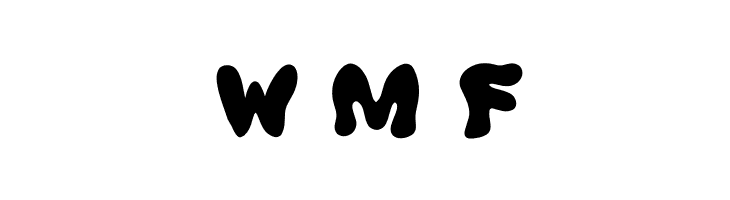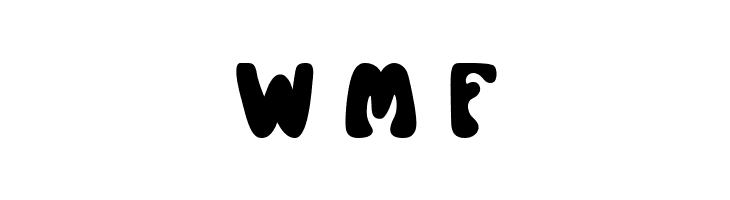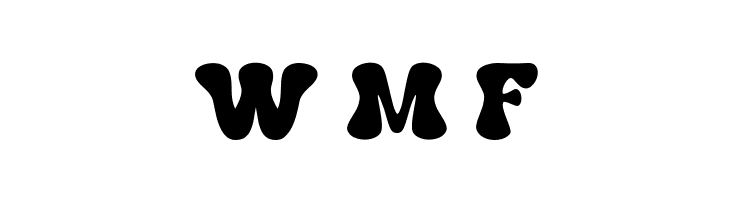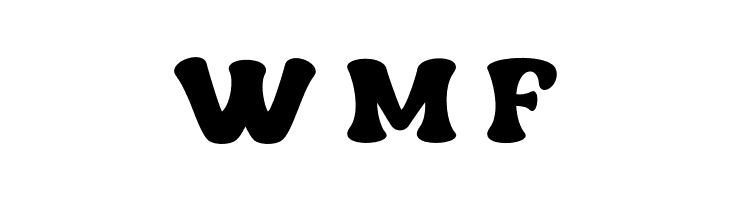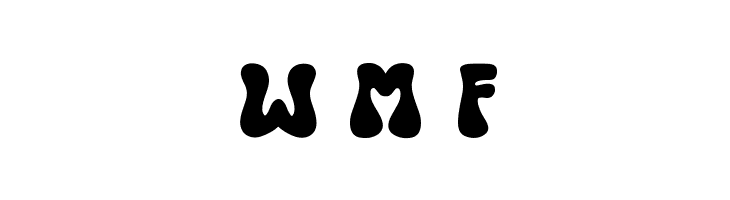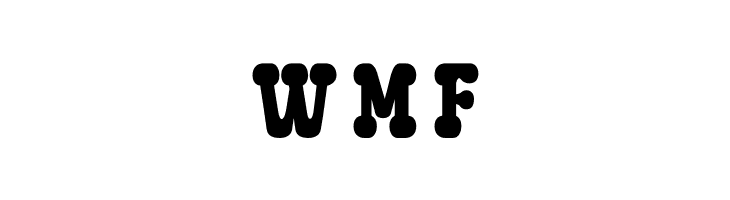
( Fonts by Muhammad Yafinuha )
A playful, bold font with rounded, bubbly characters.
( Fonts by PutraCetol Studio )
A bold, retro-inspired font with a playful, bubbly style.
( Fonts by Dharmas Studio )
A bold, playful font with rounded, bubbly characters ideal for creative projects.
( Fonts by Masa Aska Sanurumi )
A bold, playful font with a bubbly, cartoonish style and exaggerated curves.
( Fonts by Creatype Studio )
A bold, playful font with thick, rounded edges and a bubbly appearance.
( Fonts by fsuarez913 )
A bold, playful font with a bubbly, organic design and retro vibes.
( Fonts by MJType )
A playful, bold font with rounded, bubbly characters and a whimsical style.
( Fonts by Salamahtype.com )
A playful, bold outline font with rounded, bubbly characters.
( Fonts by Salamahtype.com )
A bold, playful font with a bubbly, glossy appearance.
( Fonts by Salamahtype.com )
A bold, playful font with rounded, bubbly characters ideal for retro and whimsical designs.
( Fonts by fsuarez913 )
A bold, playful font with rounded, bubbly characters and a retro-modern vibe.
( Fonts by Rian Dryana )
A playful, bold font with rounded, bubbly characters and a whimsical style.
( Fonts by Letterafa Studio )
A playful, bubbly font with bold, rounded characters and a cartoonish style.
( Fonts by Tri Sakti Oktaviano )
A bold, playful font with a grunge aesthetic and rounded, bubbly characters.
( Fonts by share font )
A bold, playful font with a bubbly, cartoon-like appearance.
( Fonts by Ronny Studio )
A playful, bubbly font with a bold and whimsical design.
( Fonts by Achmad Yani )
A bold, playful font with rounded, bubbly characters ideal for retro designs.
( Fonts by Qwatchy Wikwik )
A playful, bold font with rounded edges and a bubbly appearance.
( Fonts by Typefactoryco )
A bold, playful font with a bubbly, cartoon-like appearance.
( Fonts by Jimtype Studio )
A bold, playful typeface with rounded, bubbly characters.
( Fonts by Elbanadha Creative )
A playful, bold font with bubbly, rounded characters and a whimsical style.
( Fonts by madeDeduk )
A bold, playful font with a bubbly and whimsical design.
( Fonts by Achmad Yani )
A bold, playful font with rounded, bubbly characters and a retro vibe.
( Fonts by Yoga Letter )
A playful, bold font with a bubbly, liquid-like design.
( Fonts by Tri Sakti Oktaviano )
A bold, playful font with a retro, bubbly style.
( Fonts by JunCreative )
A playful, bold typeface with rounded, bubbly characters.
( Fonts by Maulana Creative )
A bold, playful font with rounded, bubbly characters and a whimsical style.
( Fonts by fsuarez913 )
A playful, bold font with rounded, bubbly characters.
( Fonts by Beautypes )
A playful, bold font with a bubbly, cartoon-like appearance.
( Fonts by Scratch Design )
A playful, bold font with rounded, bubbly characters.
( Fonts by Muhammad Afif )
A bold, playful font with rounded, bubbly characters.
( Fonts by HansCo )
A bold, playful font with rounded, bubbly characters perfect for retro and fun designs.
( Fonts by Nathatype )
A bold, rounded font with a playful and bubbly style.
( Fonts by Wasabib Studio )
A playful, bold font with rounded, bubbly characters ideal for retro-themed projects.
( Fonts by Dhabee Studio )
A playful, bold font with rounded, bubbly characters.